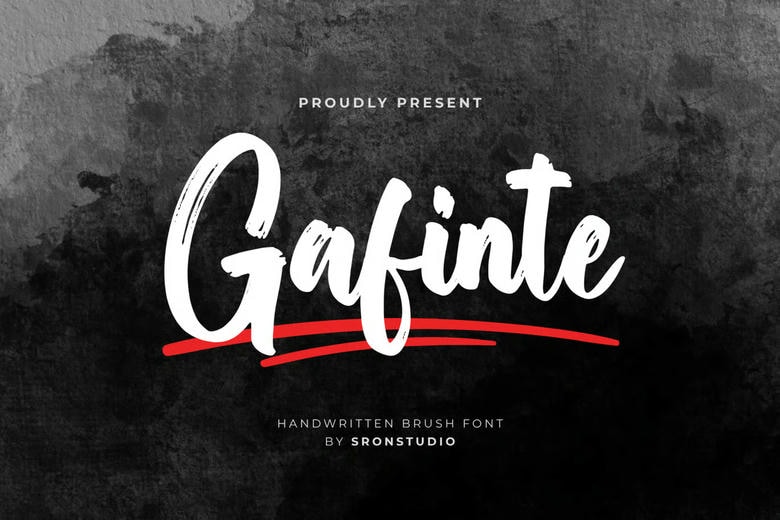
Gafinte is a brush script font that injects vibrant life and handmade quality to your work. This font can be considered ideal in the logos, posters, packaging, social media, and all the works that require a bold but artistic touch, with its descriptive lines and natural brush feel. Gafinte takes the essence of the vigorous brush lettering, and lets your typography come alive and personality-filled.
Gafinte Brush Script Font